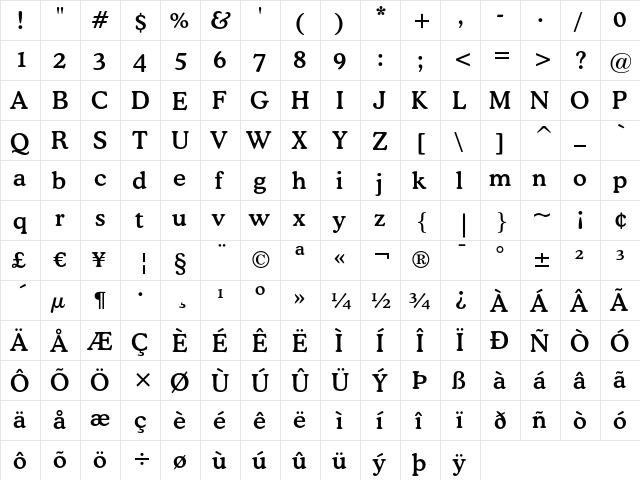
Bitstream Cooper Medium Font Preview
Bitstream Cooper Medium
Bitstream Cooper Medium Font Details
Design Context for Bitstream Cooper Typeface
Bitstream Cooper offers clean, dependable letterforms without strong stylistic allegiance, making it a practical choice for designers who need flexibility.